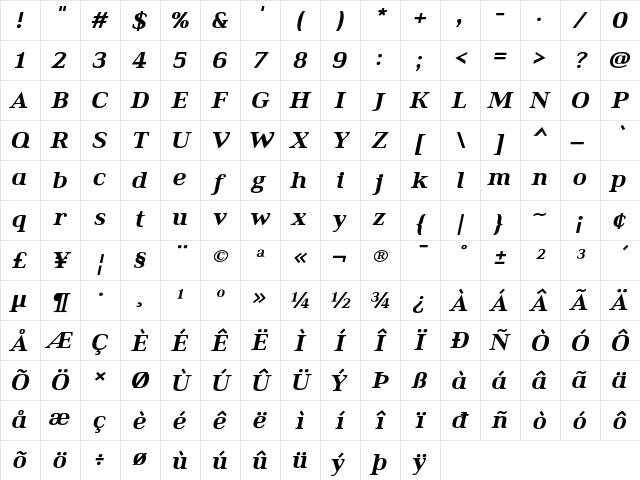
Ethos Expanded Heavy Italic
Style: Heavy Italic
Foundry: FONTS WITH LOVE
Designer: Florian Klauer
Complete Ethos Expanded Heavy Italic glyph index. Displaying only characters natively supported by Ethos Expanded Heavy Italic font.
Design Context for Ethos Expanded
Ethos Expanded is a composed and adaptable typeface that performs quietly and consistently across a wide range of design contexts. The slanted form adds forward momentum and visual energy.